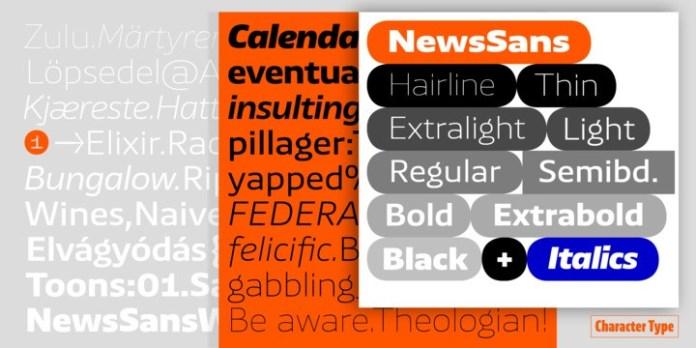
NewsSans Wide Font is part of a multi-tool typeface system. It works in all corporate, editorial analog, and digital settings. NewsSans is optimized (hinted) for best screen performance.
It was designed to allow a maximum range of visual shades when creating a typographic look, effortlessly ranging from loud and expressive, to subtle and reserved. The large x-height combined with low ascenders and descenders allows for tight and efficient designs. All sharp corners were trimmed off to add character and a nuance of extra space. NewsSans’ strokes link humanist curves with ‘American Grotesque’ details and solid square stems.